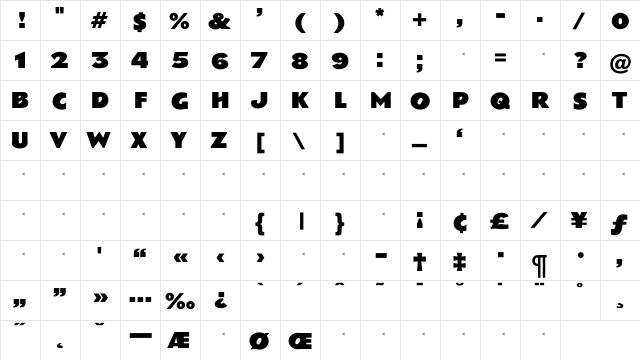
Bassuto Regular
Design Context for Bassuto Typeface
Bassuto takes a measured approach to typography — its balanced proportions and neutral character make it a reliable workhorse for both digital and print work.
Pro Tip: Use Bassuto in both headline and body roles to test its range before committing to a single application.